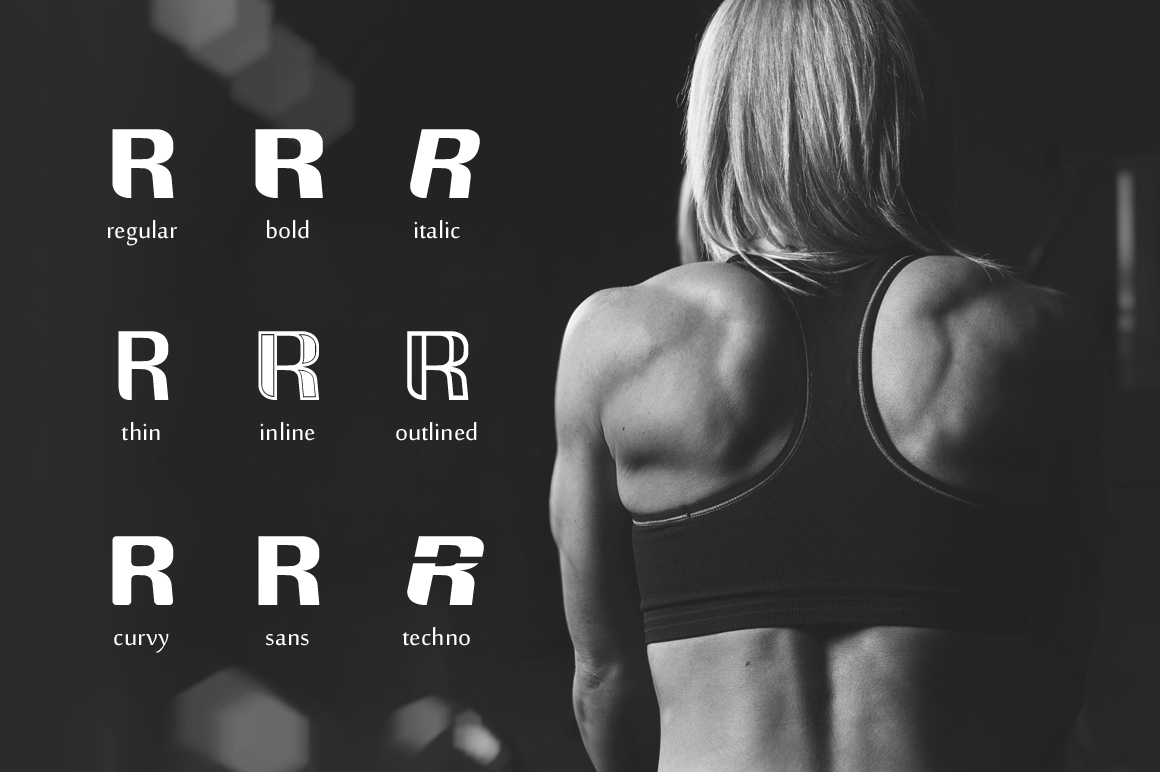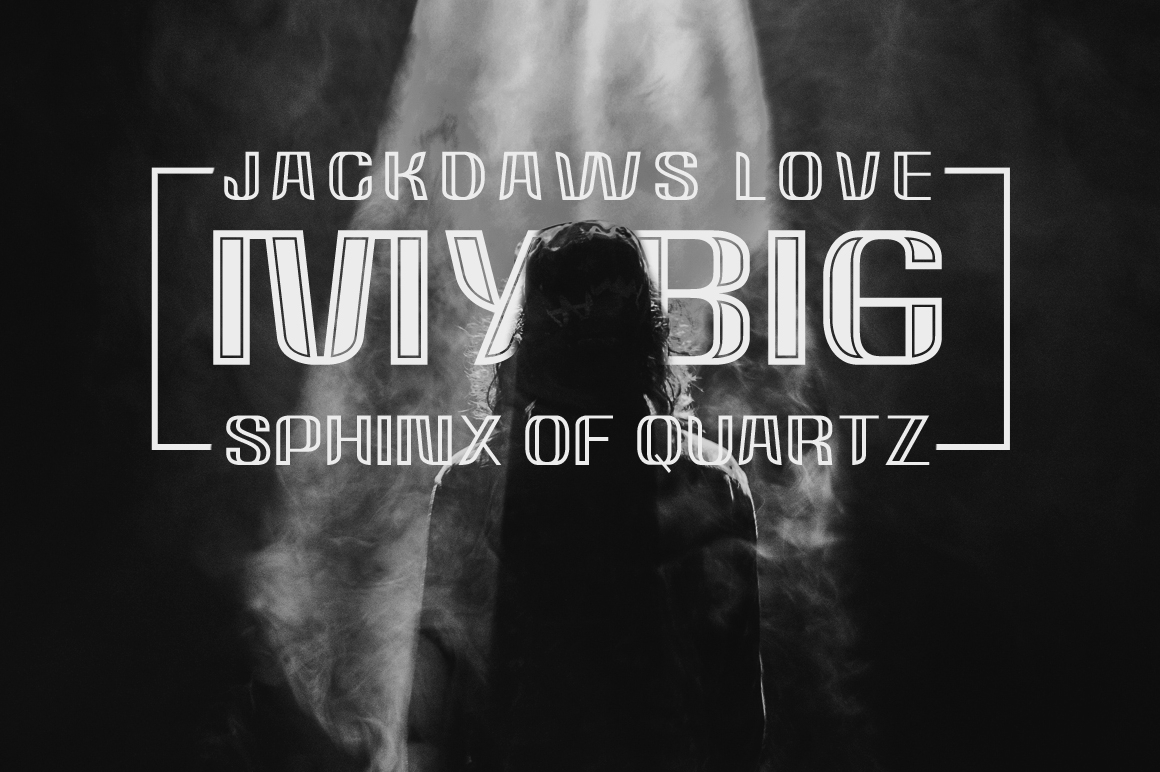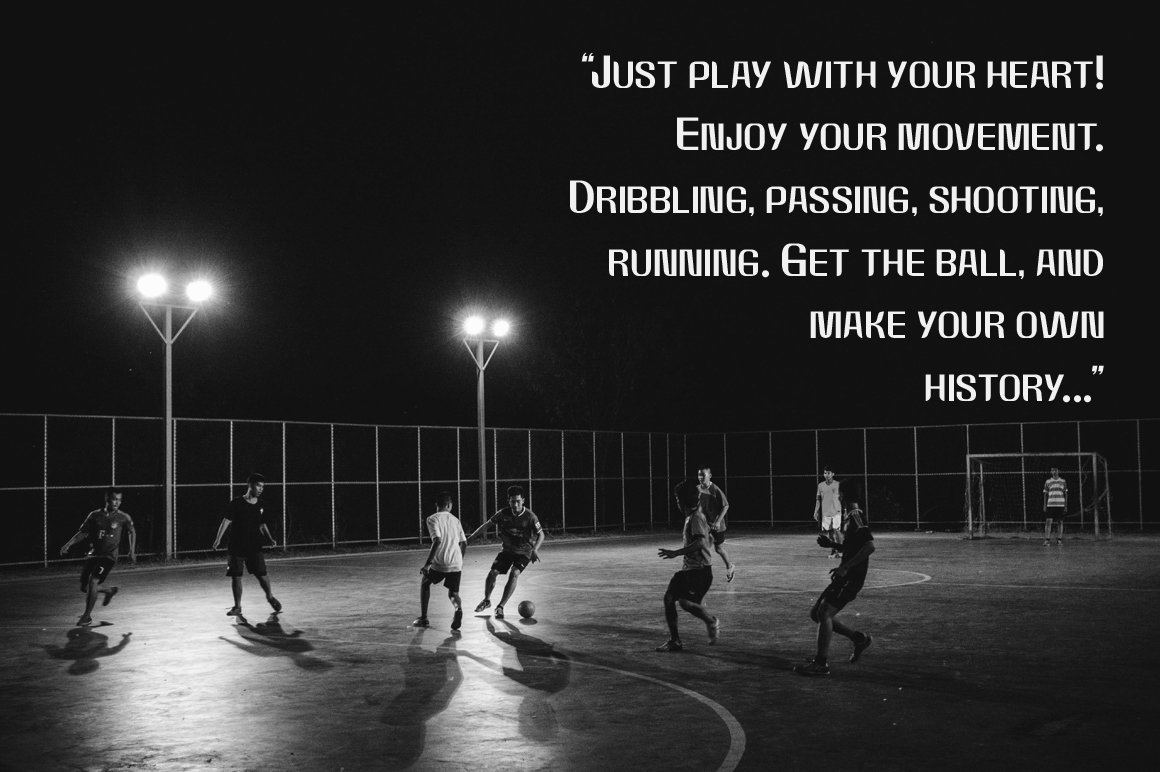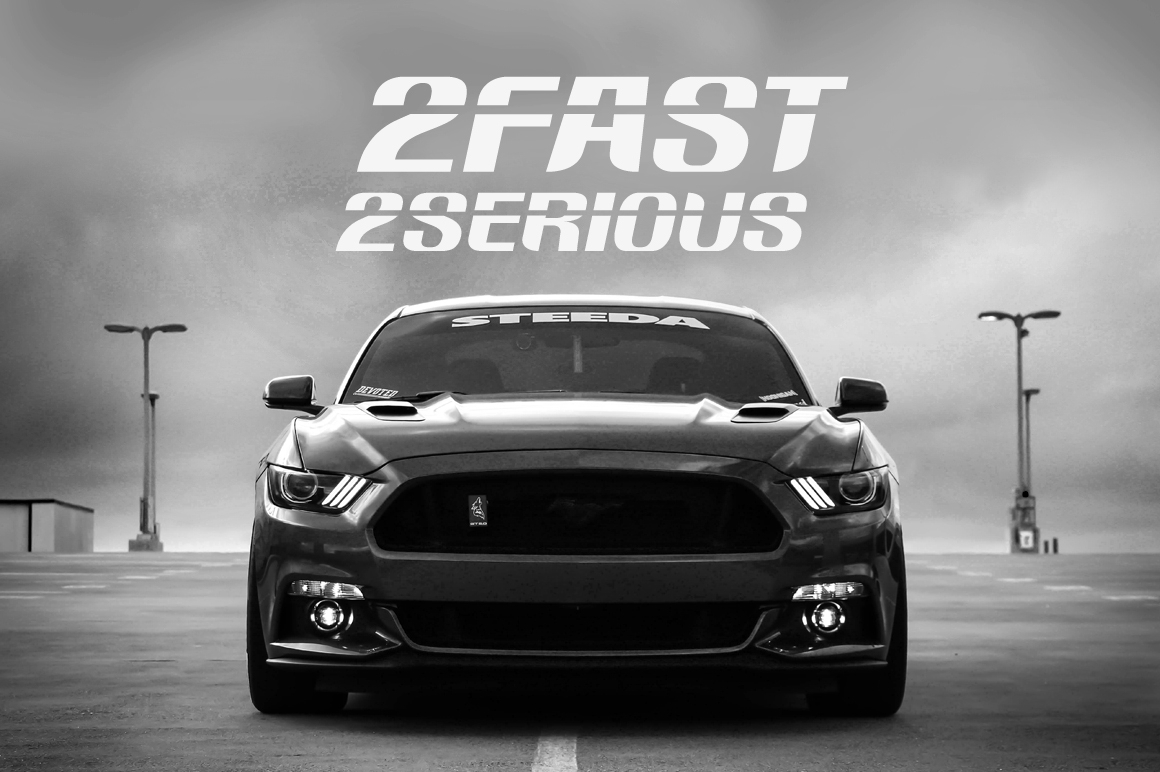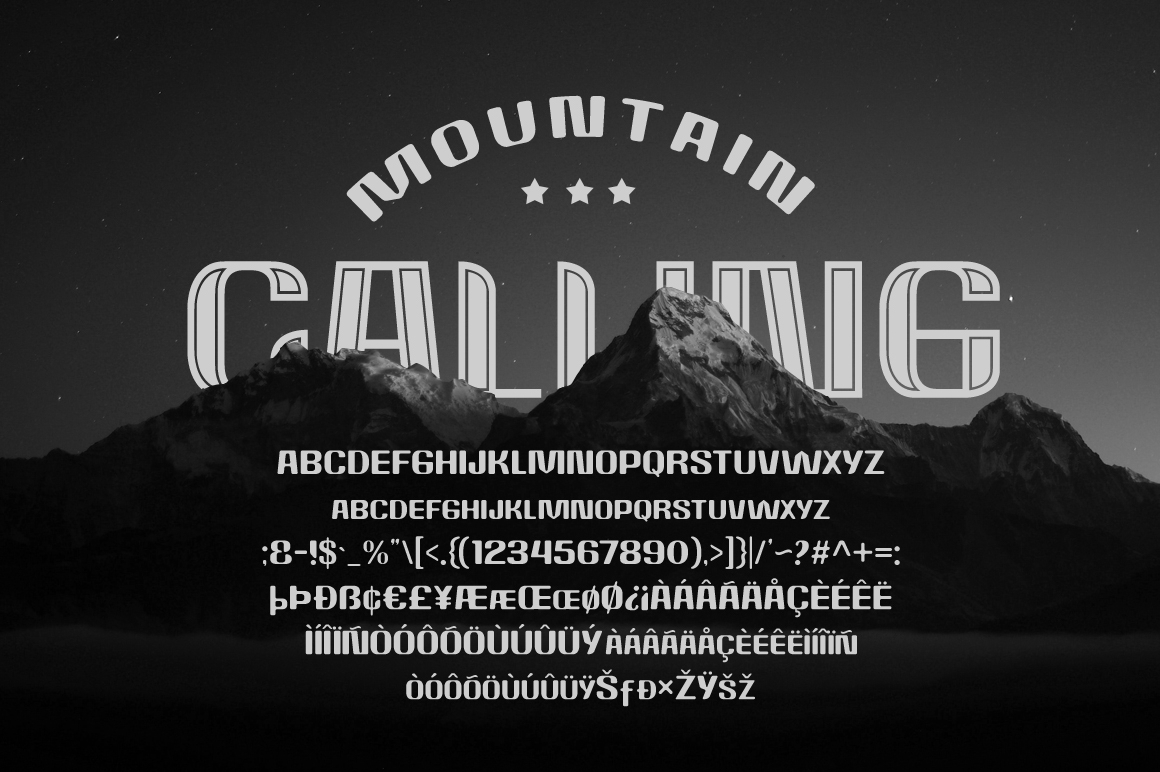
Introduction to Rockrace Font
Have you ever been brainstorming a creative project, staring blankly at a blank canvas, and suddenly, the perfect font strikes your mind? It’s like a spark of inspiration that sets off a chain reaction of ideas. For designers, the right font can make all the difference between a mediocre design and a stunning one. And, if you’re looking for that elusive perfect font, you might want to give the Rockrace Font a try.
This versatile font family offers 9 different styles that can be mixed and matched to create a unique look that’s perfect for your design project. Whether you’re working on a sport, techno, or minimalism theme, the Rockrace Font is a valuable resource that can elevate your designs to the next level.
Key Features of Rockrace Font
- Unique and bold design, perfect for creative projects that require a modern and edgy feel.
- Rockrace Font is designed to be highly legible, even at small font sizes, making it perfect for use in titles, headings, and body text.
- Comes with a wide range of language support, including Latin, Cyrillic, and Greek alphabets, making it a versatile design resource.
Honest Review: Rockrace Font
As a designer, I’m always on the lookout for high-quality design resources that can elevate my creative projects. Recently, I came across the Rockrace Font, and I’m excited to share my honest review.
- ✨ The Rockrace Font has a unique, edgy feel that’s perfect for modern designs.
- ⚠️ The font may not be suitable for all types of designs, particularly those requiring a more traditional or elegant look.
- ⚠️ The font’s bold style can be overwhelming if not used sparingly.
Overall, I’m impressed with the Rockrace Font’s unique style and versatility. While it may not be suitable for every design project, it’s a great addition to any designer’s toolkit, especially for modern and edgy creative projects. With a bit of caution and restraint, the Rockrace Font can be a valuable design resource.
For the best results, use the Rockrace Font in conjunction with other design elements, such as images and graphics. Experiment with different font sizes and styles to create a unique look. The Rockrace Font is a versatile design resource that can be used in a variety of creative projects.
The Rockrace Font is commonly used in design projects that require a bold and creative touch, such as logos, posters, and social media graphics. It’s also a great choice for designers who want to add a high-quality design resource to their collection.